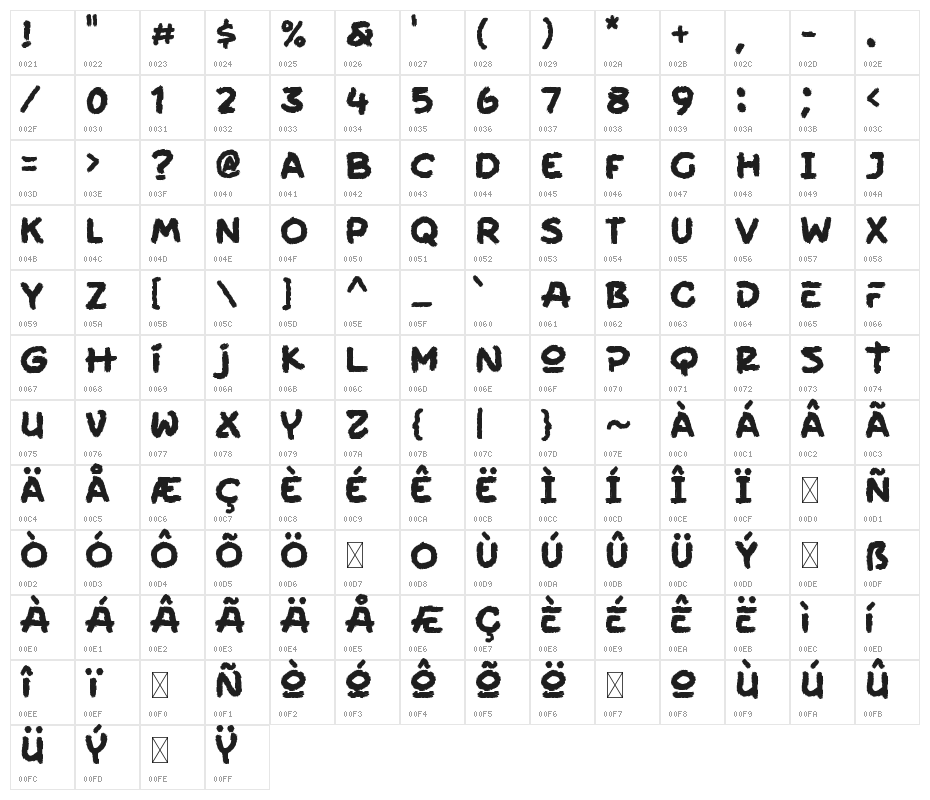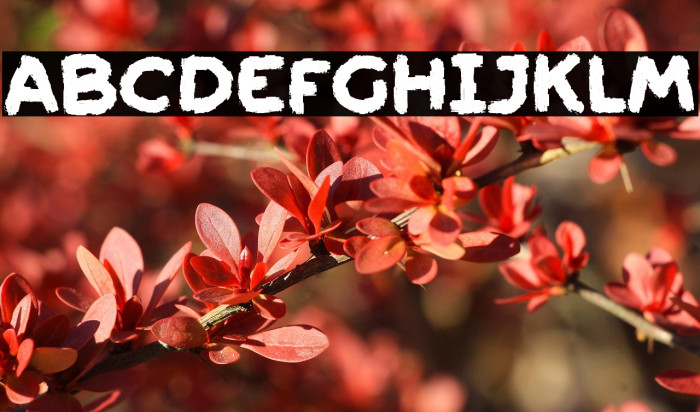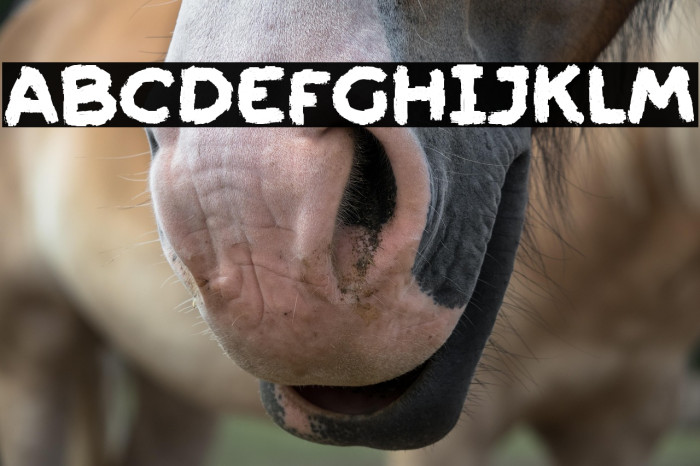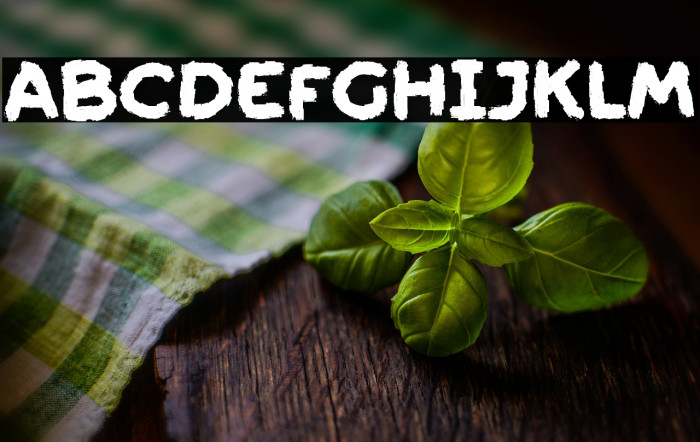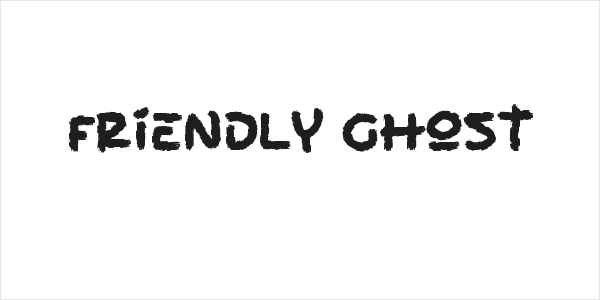
Friendly Ghost Font
Friendly Ghost Description
This font features a playful and bold style with a hand-drawn appearance. The characters are thick and slightly irregular, giving them a whimsical and friendly look. The strokes are consistent in weight, and the edges are rounded, adding to the approachable feel. The font maintains a casual and informal tone, making it suitable for creative and fun projects. The overall design is cohesive, with each letter maintaining a similar aesthetic, ensuring readability while still being visually engaging.
| Proposed Projects | Ideal for children's books, playful branding, greeting cards, and creative posters. |